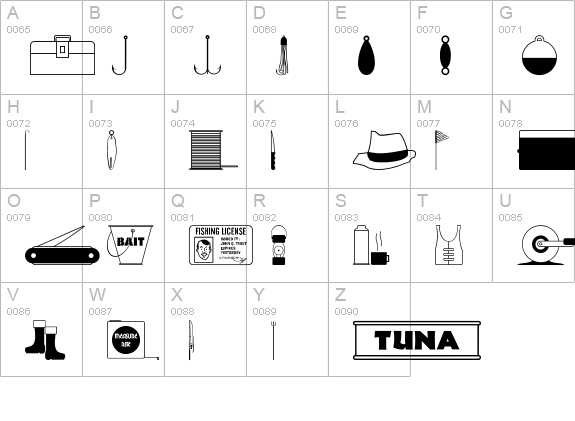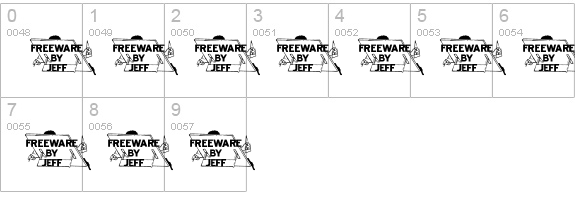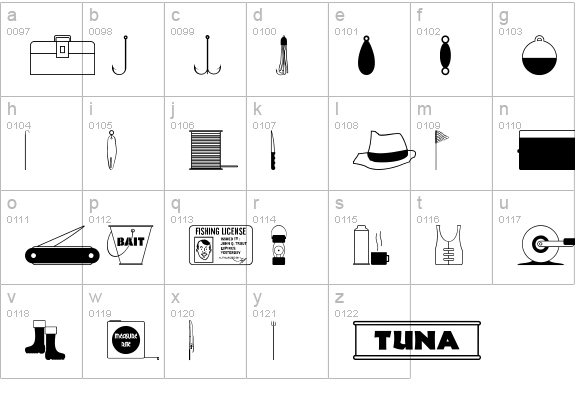
Fishin' Gear JL Font Details
Fishin' Gear JL font is a charming and playful typeface that exudes a fun and laid-back vibe. With its unique and whimsical design, this font is perfect for adding a touch of personality to your projects. Whether you're working on a fishing-themed design, a children's book, or a quirky branding project, Fishin' Gear JL font is sure to make your text stand out. What's even better is that Fishin' Gear JL font is completely free to download at FontsMarket.com. This means you can easily access this delightful font without any cost, making it a fantastic addition to your font library. So why wait? Download Fishin' Gear JL font today and let your creativity reel in the compliments!